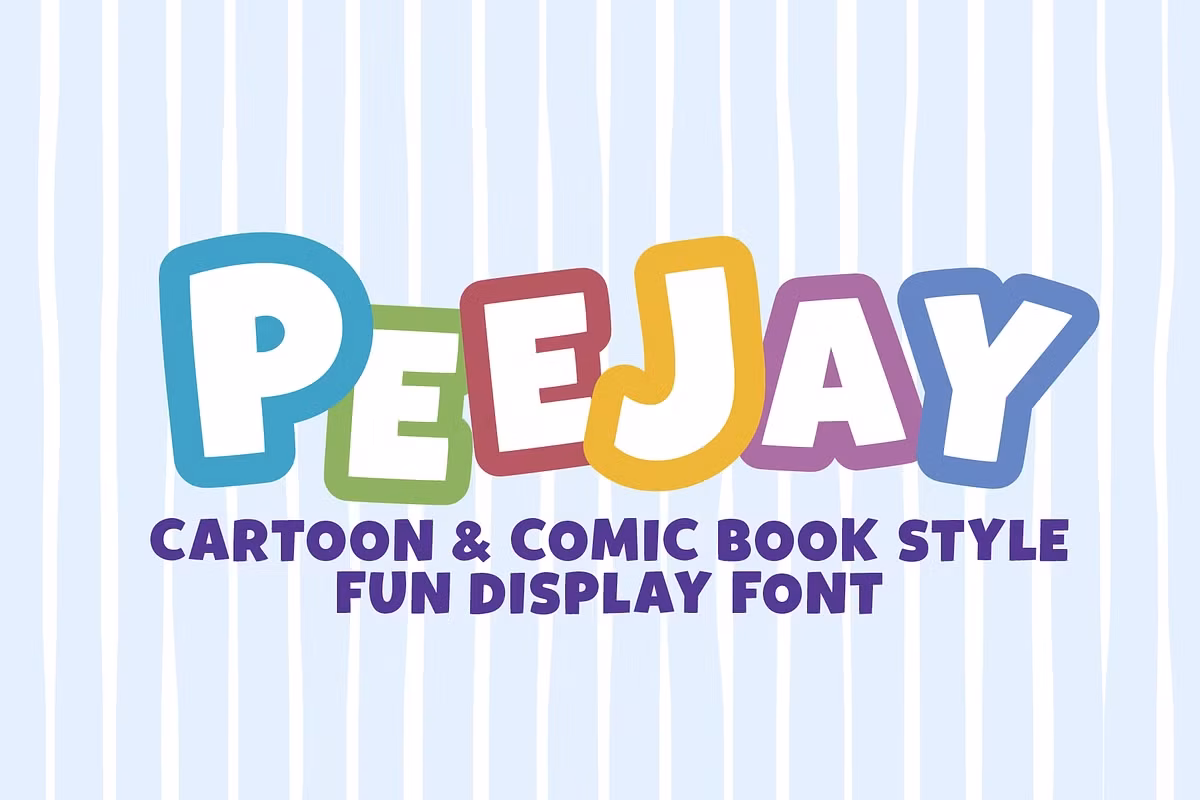
PEEJAY | Cartoon & Comic Book Font Free Download
PEEJAY | Cartoon & Comic Book Font Free Download is a bold, fun, and expressive typeface designed to capture the energy and excitement of classic comic books and animated titles. With its playful curves and punchy character, PEEJAY is perfect for comic panels, children’s books, gaming graphics, YouTube thumbnails, and anything that needs a loud, colorful voice.
This all-caps font is easy to read, packed with personality, and optimized for both print and digital formats. It includes punctuation, multilingual support, and runs smoothly on Mac and Windows platforms.